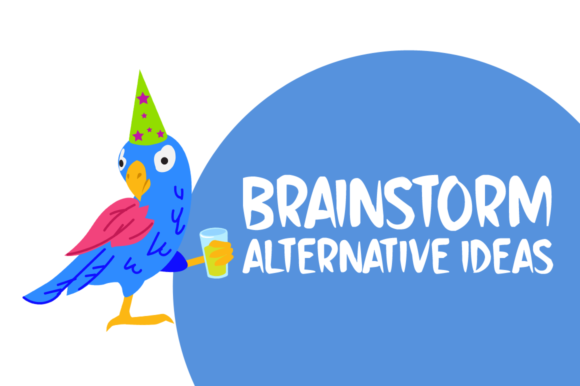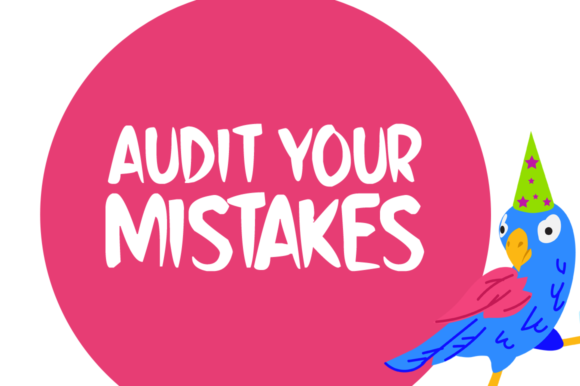
Introduction to Party Parrot Font
Party Parrot is a cool and fun display font with a unique charm.
Get inspired by its whimsical style .
Key Features of Party Parrot Font
Why Choose Party Parrot Font?